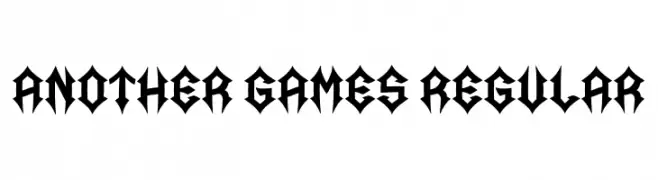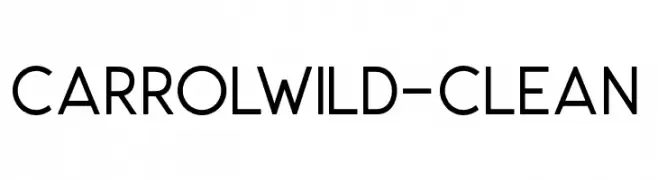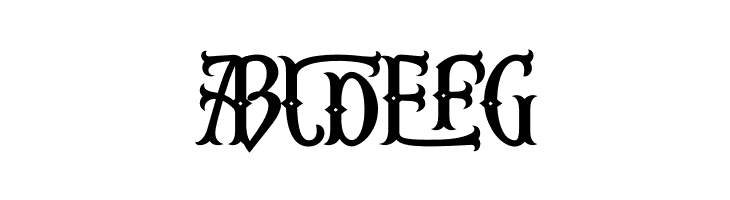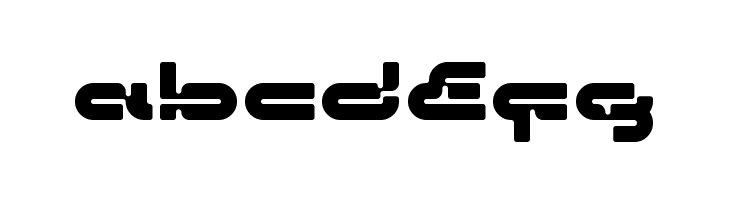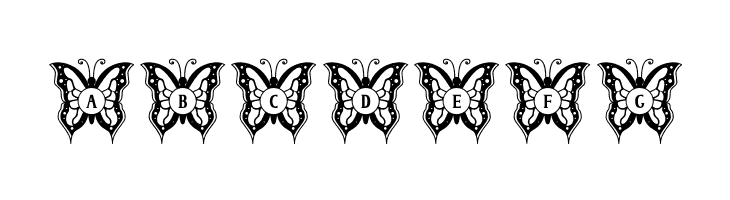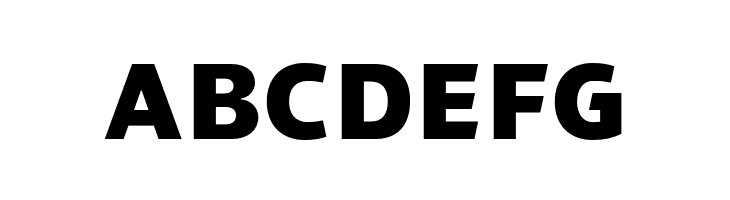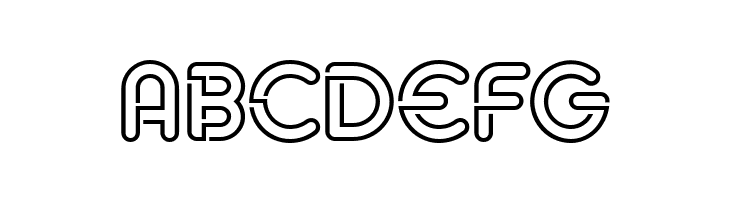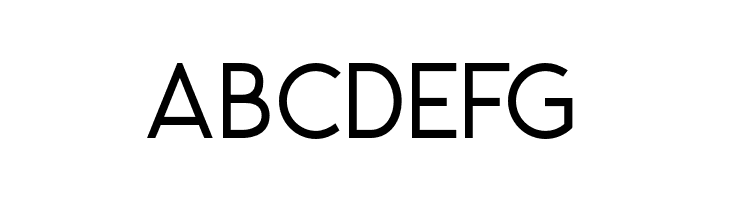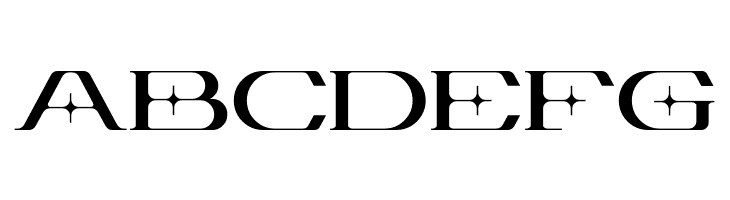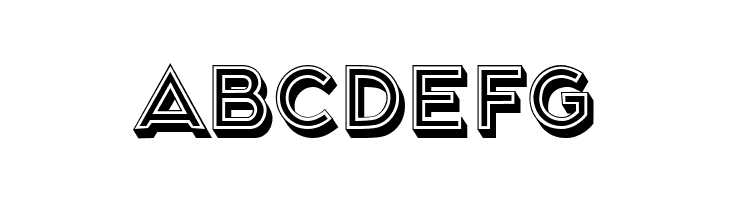
A bold, gothic-style font with intricate, ornamental details.
A bold, futuristic font with geometric and symmetrical design elements.
A decorative monogram style with butterfly motifs surrounding bold uppercase letters.
A bold, modern sans-serif font with uniform strokes and high legibility.
A modern, double-line font with a futuristic and geometric style.
A clean, modern sans-serif font with geometric influences.
A decorative and bold font with angular details and star-like embellishments.
A bold, geometric font with a three-dimensional Art Deco style.
A bold, geometric font with unique horizontal accents and a futuristic style.
A bold, gothic-inspired font with sharp, angular edges and intricate details.